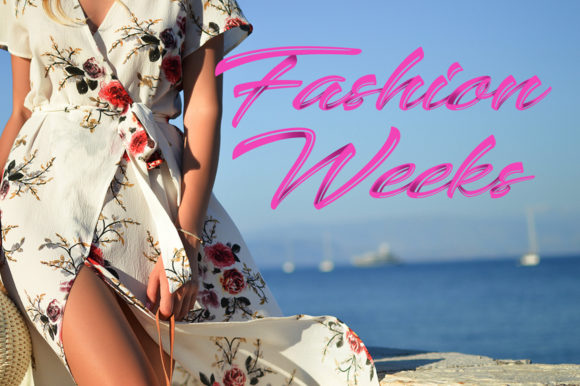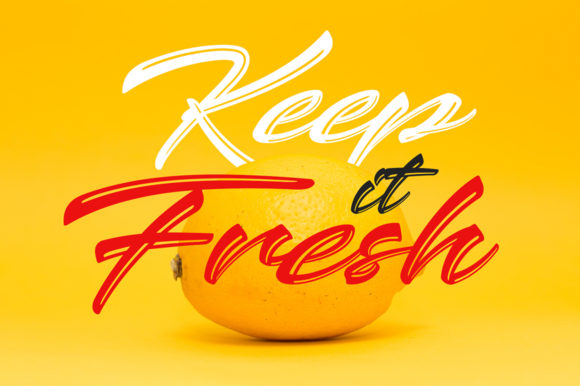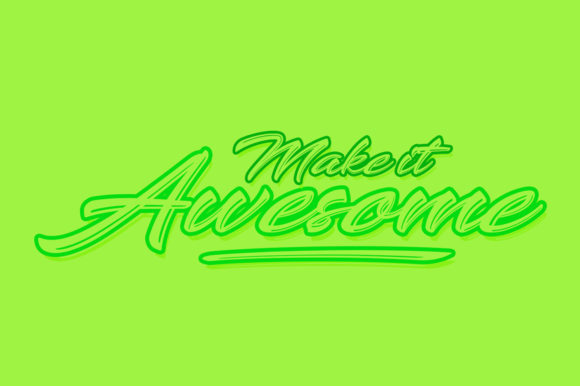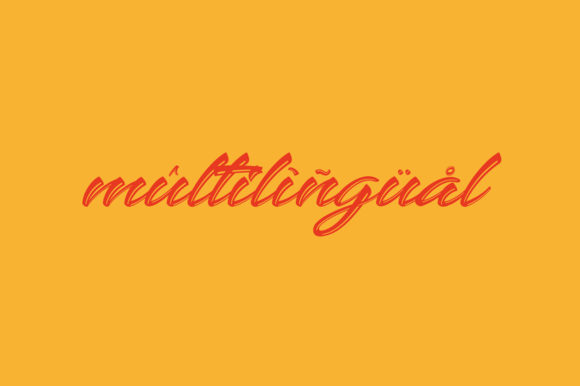
Introduction to Keshya Font
Have you ever been working on a creative project, pouring your heart and soul into it, only to feel like something’s missing? You’ve got the perfect concept, but the design just isn’t quite popping? That’s where the right design resource comes in – and that’s where the Keshya Font comes to the rescue!
With its bold, handwritten brush strokes and high-quality aesthetic, this font is sure to elevate your design ideas and make them stand out. Whether you’re working on a branding project, a social media campaign, or a personal art piece, Keshya Font is the perfect addition to take your work to the next level. Plus, with a transparent background and free download options, it’s easy to incorporate into any creative project.
- Comes in 6 different font styles to suit various design needs
- Unique characteristics: elegant script, modern flair, and versatility for various design applications
Honest Review: Keshya Font
As a designer, I’m always on the lookout for high-quality design resources that can elevate my creative projects. Recently, I stumbled upon the Keshya Font, and I’m excited to share my honest review with you.
- ✨ The Keshya Font offers a unique and elegant design that’s perfect for creative projects.
- ✨ The transparent background option allows for seamless integration with various design elements.
- ⚠️ The font may not be suitable for large-scale or high-density text applications.
- ⚠️ The font’s scalability can be a bit inconsistent, which may require some manual adjustments.
Overall, I’m impressed with the Keshya Font’s potential to add a touch of sophistication to my design projects. While it may have some limitations, its unique design and free download make it a valuable resource for designers. If you’re looking for a high-quality font to elevate your creative projects, I’d definitely recommend giving the Keshya Font a try.
Introduction to Keshya Font
Keshya Font is a high-quality design resource available for free download. It features a transparent background, making it perfect for creative projects that require a clean and modern look.
Tips for Getting the Most Out of Keshya Font
To get the most out of Keshya Font, be sure to experiment with different font sizes, colors, and styles. You can also combine Keshya Font with other design elements, such as images and graphics, to create a unique and eye-catching design.
Common Use Cases for Keshya Font
Keshya Font is a versatile font that can be used in a variety of creative projects, including logos, graphics, presentations, and documents. It’s perfect for designers, marketers, and entrepreneurs who need a high-quality font for their designs.